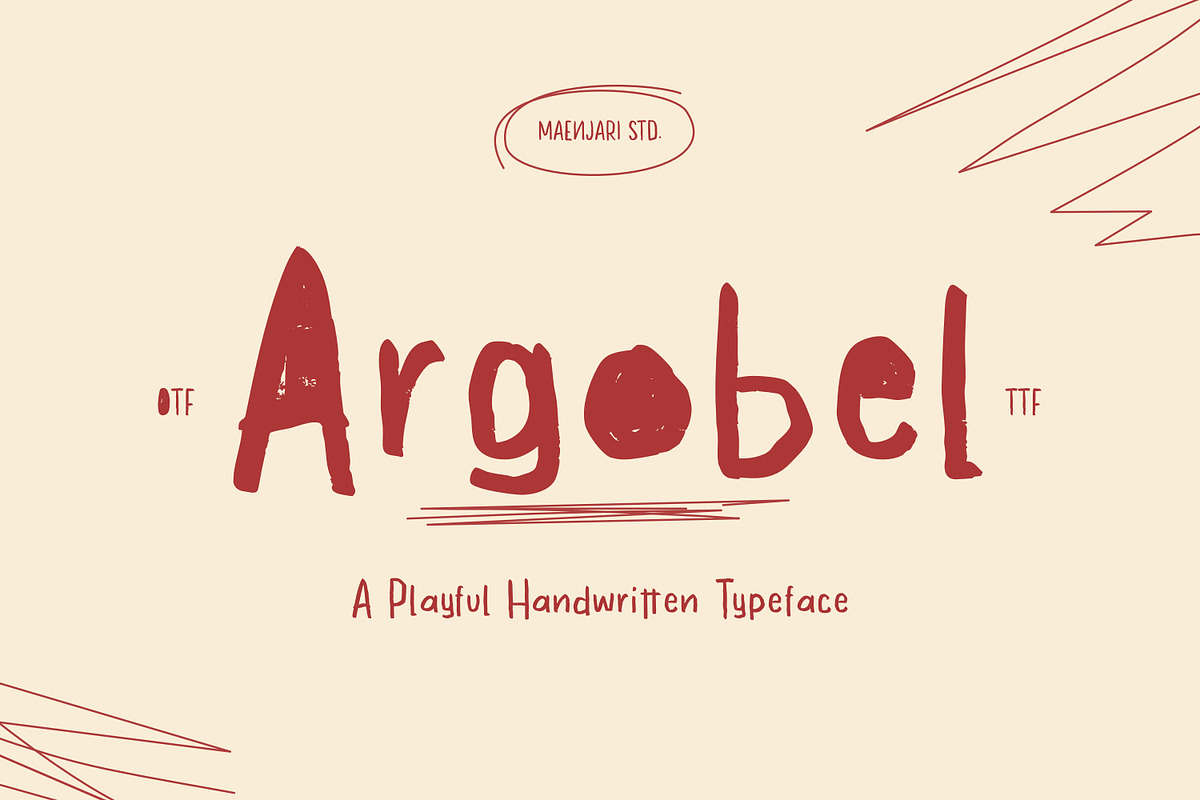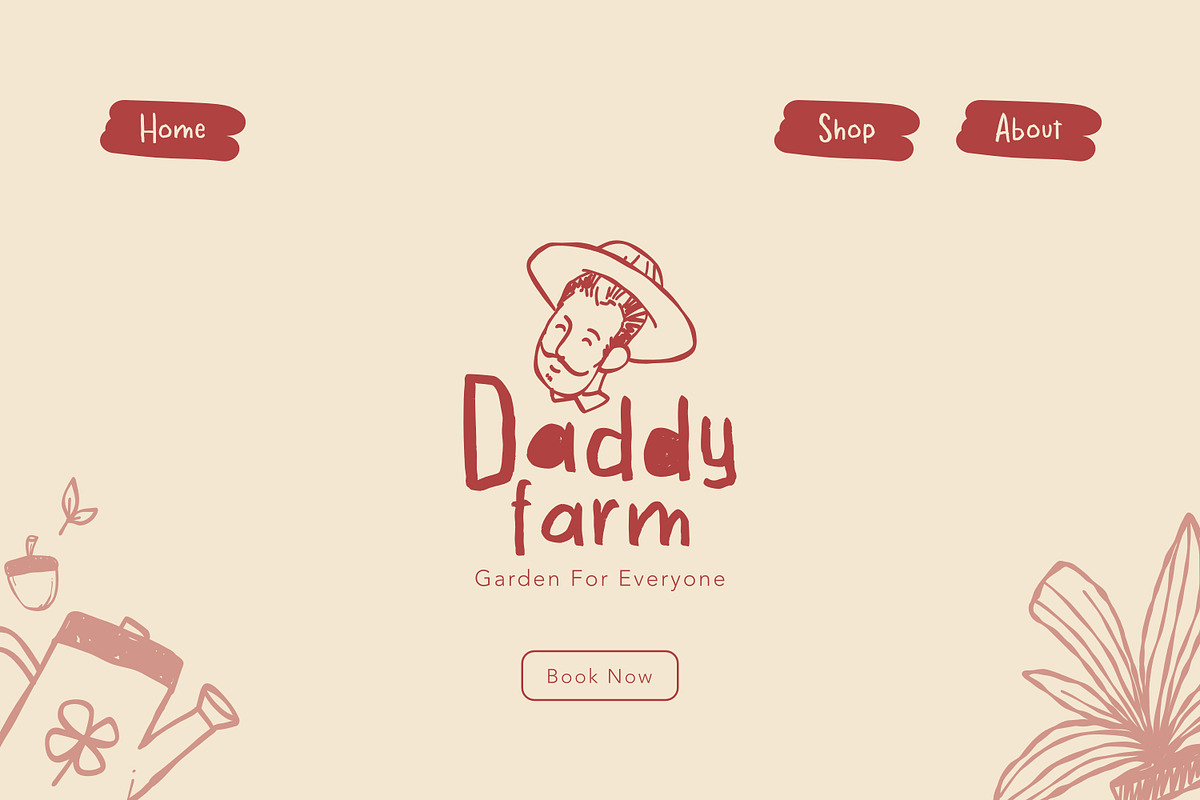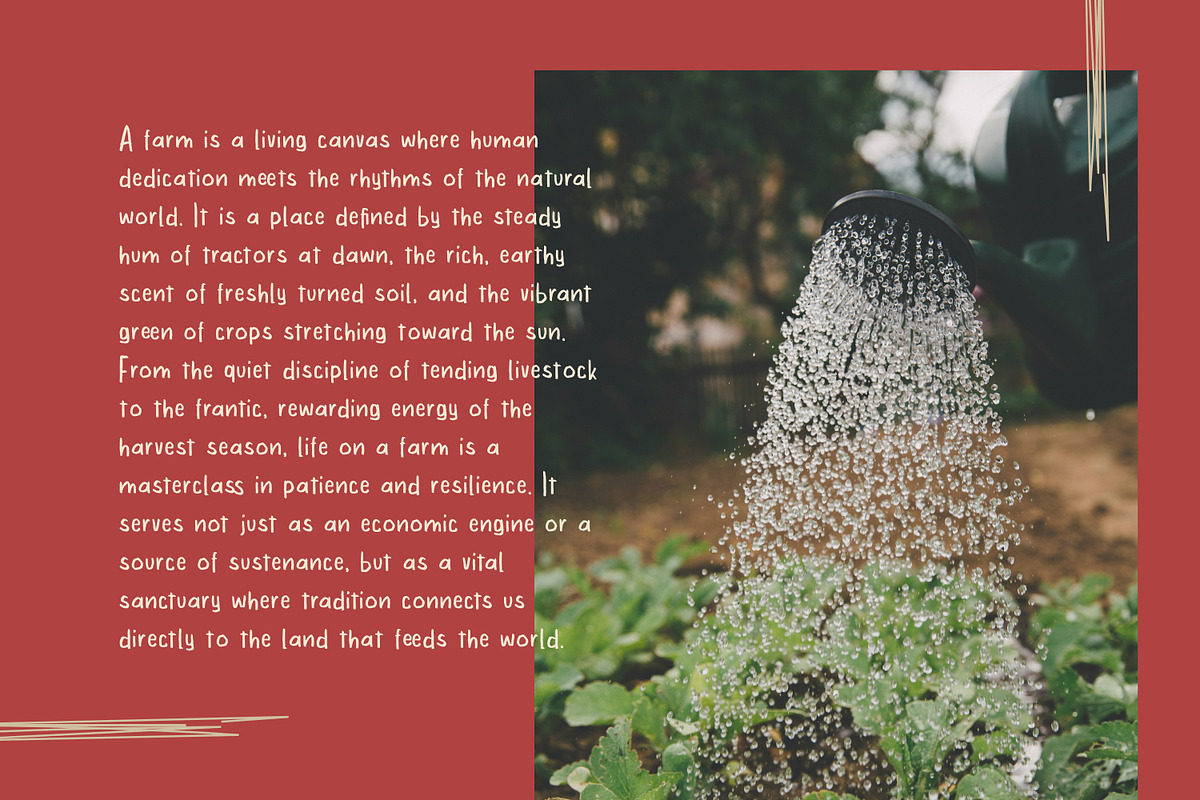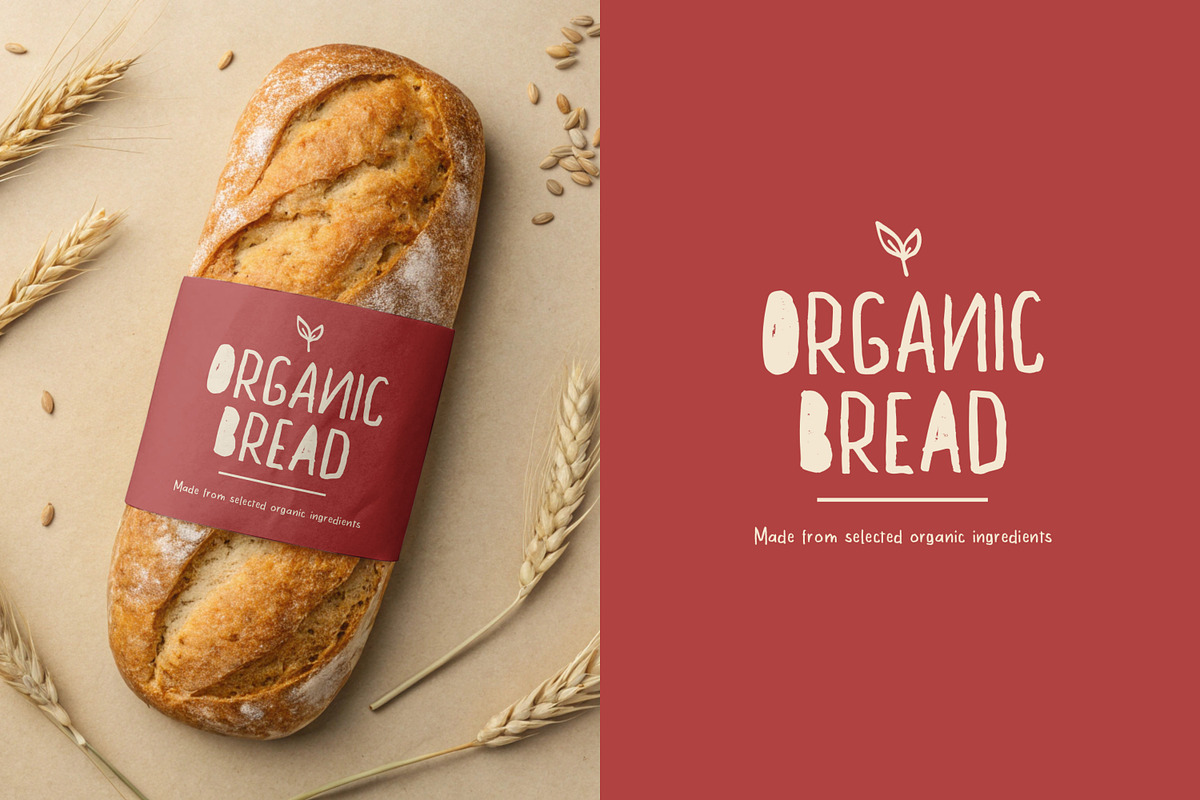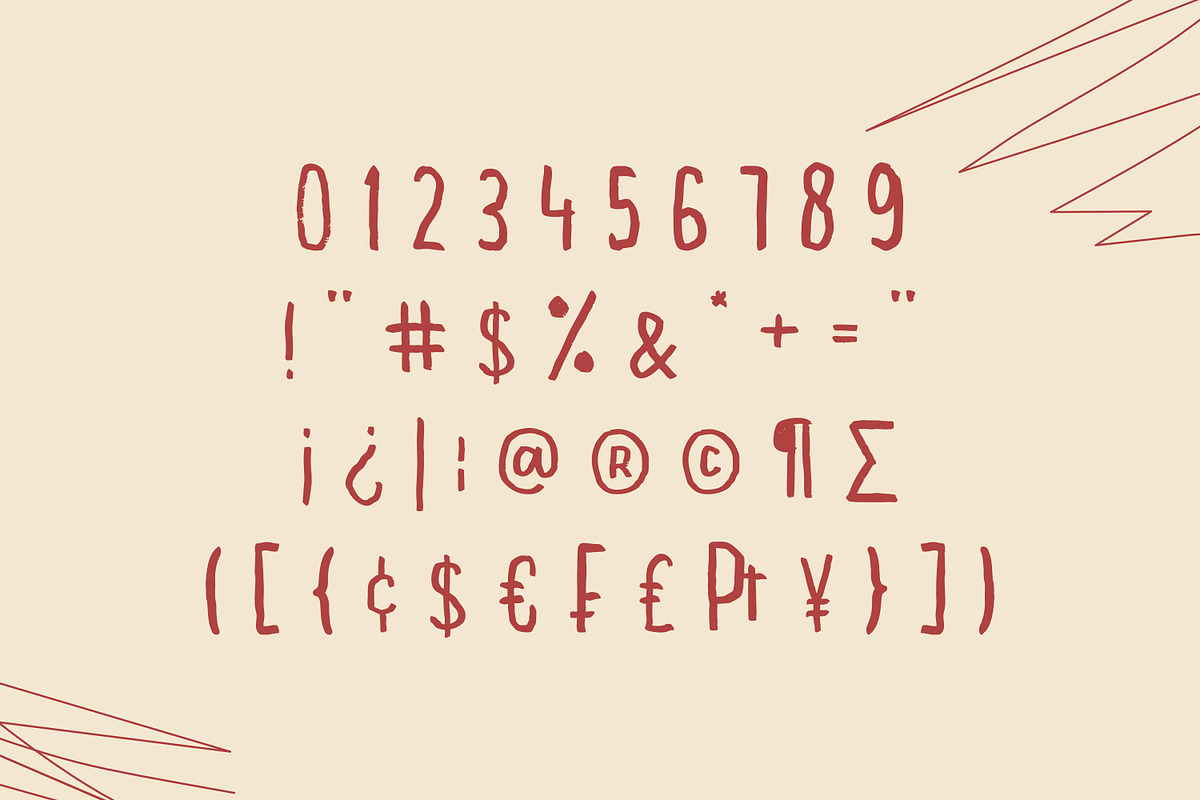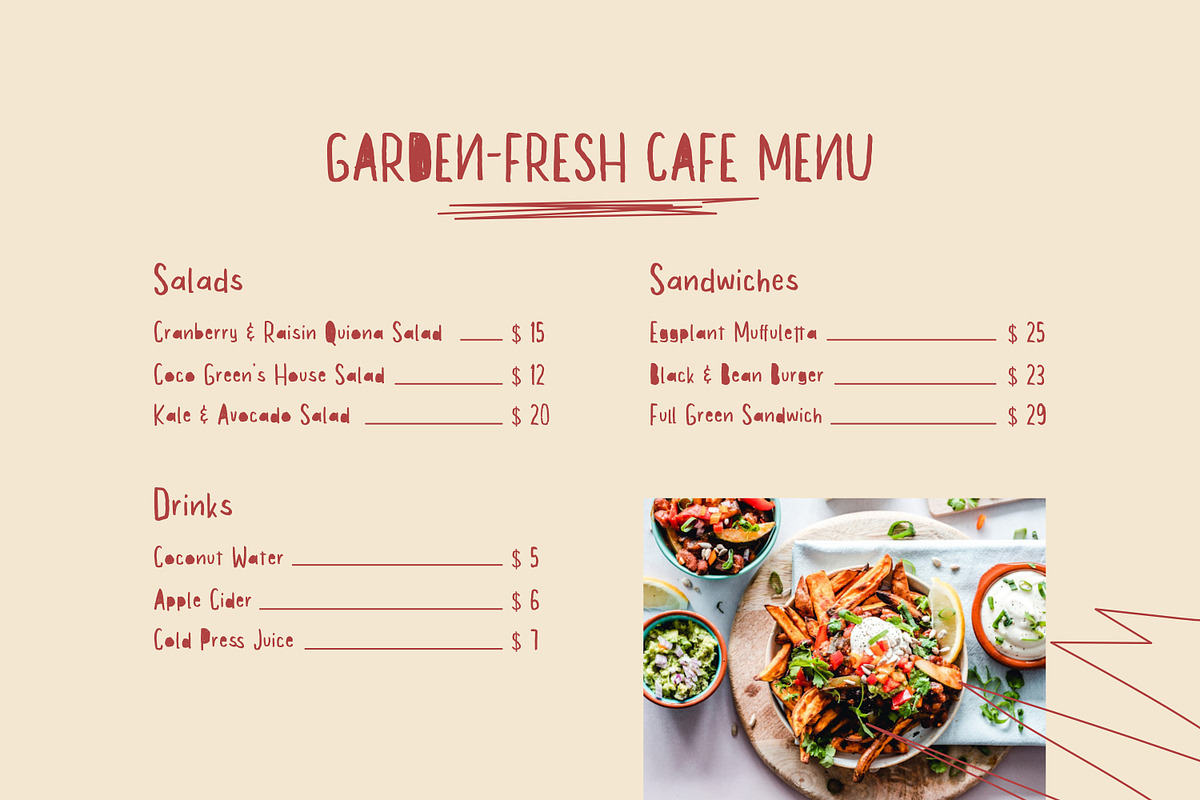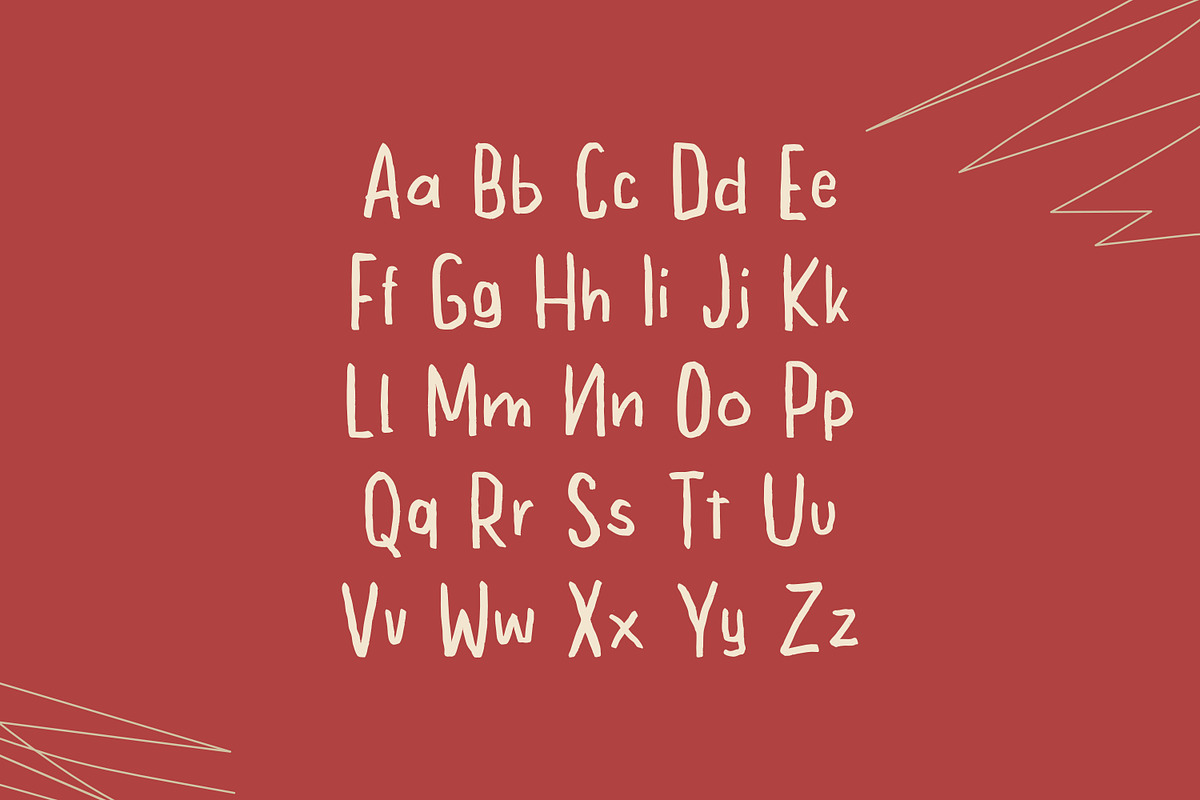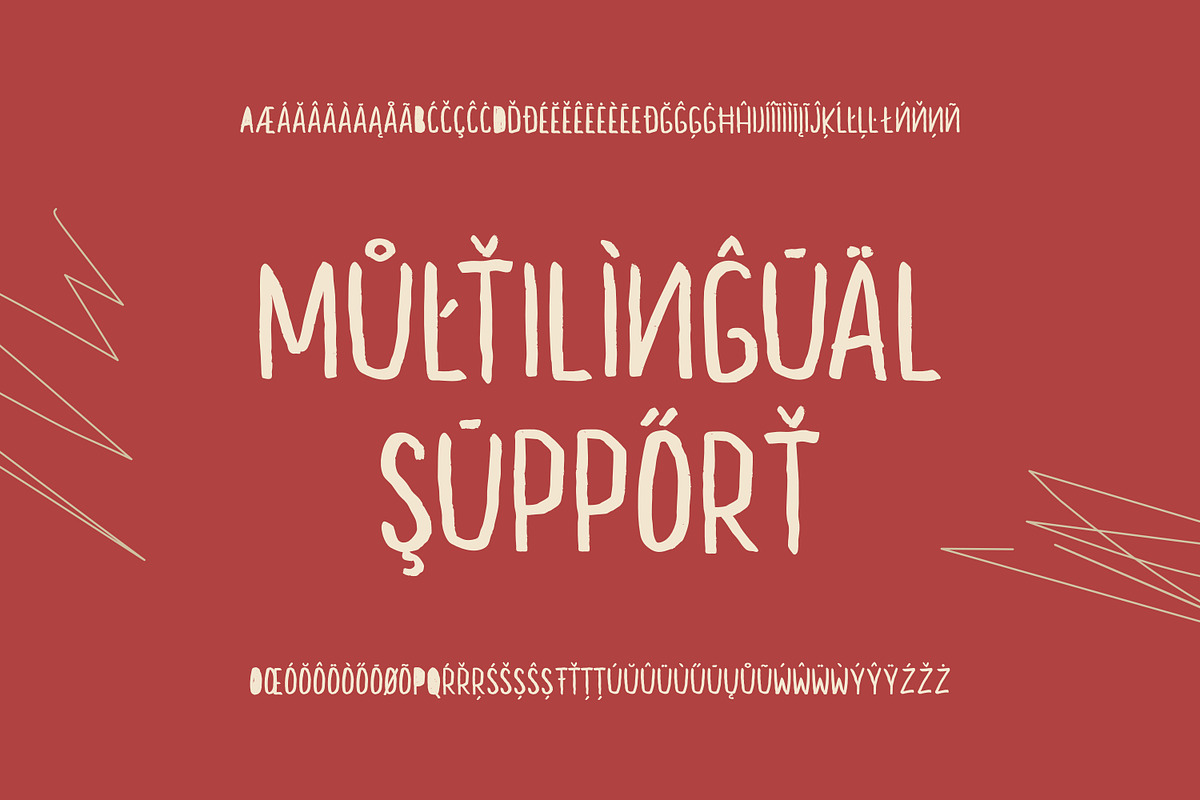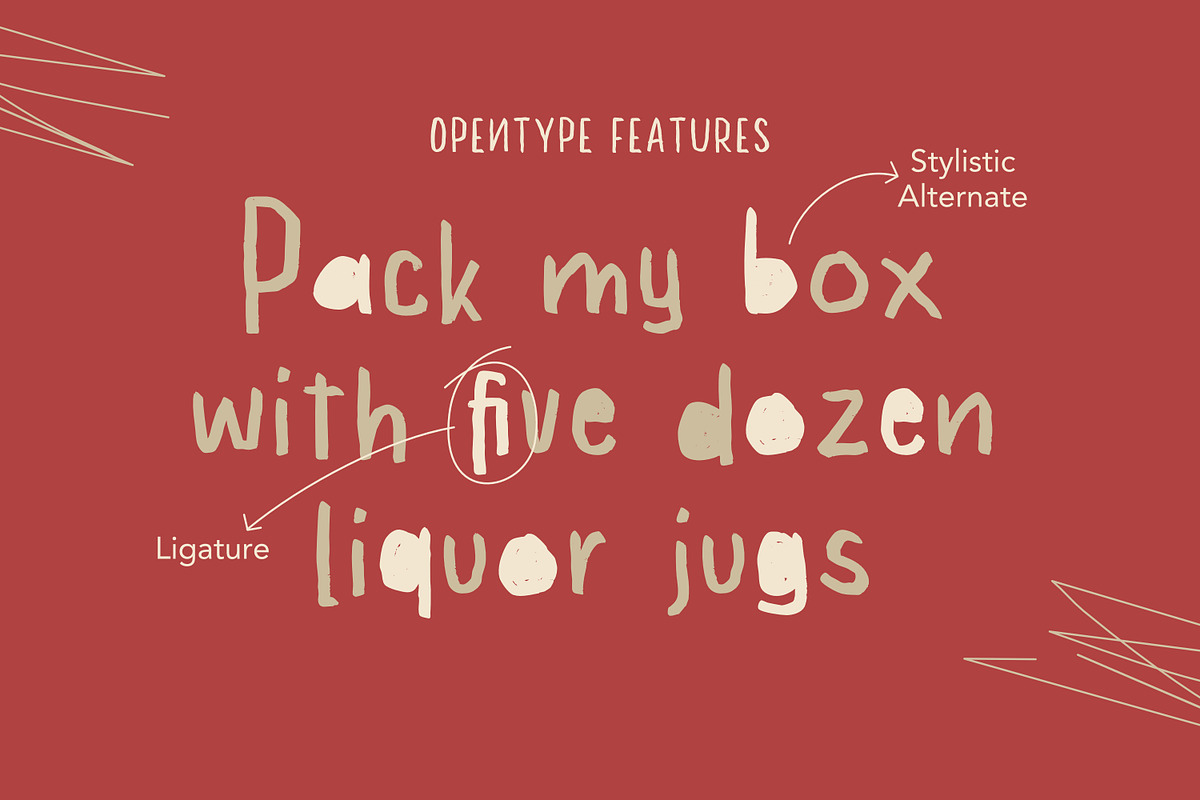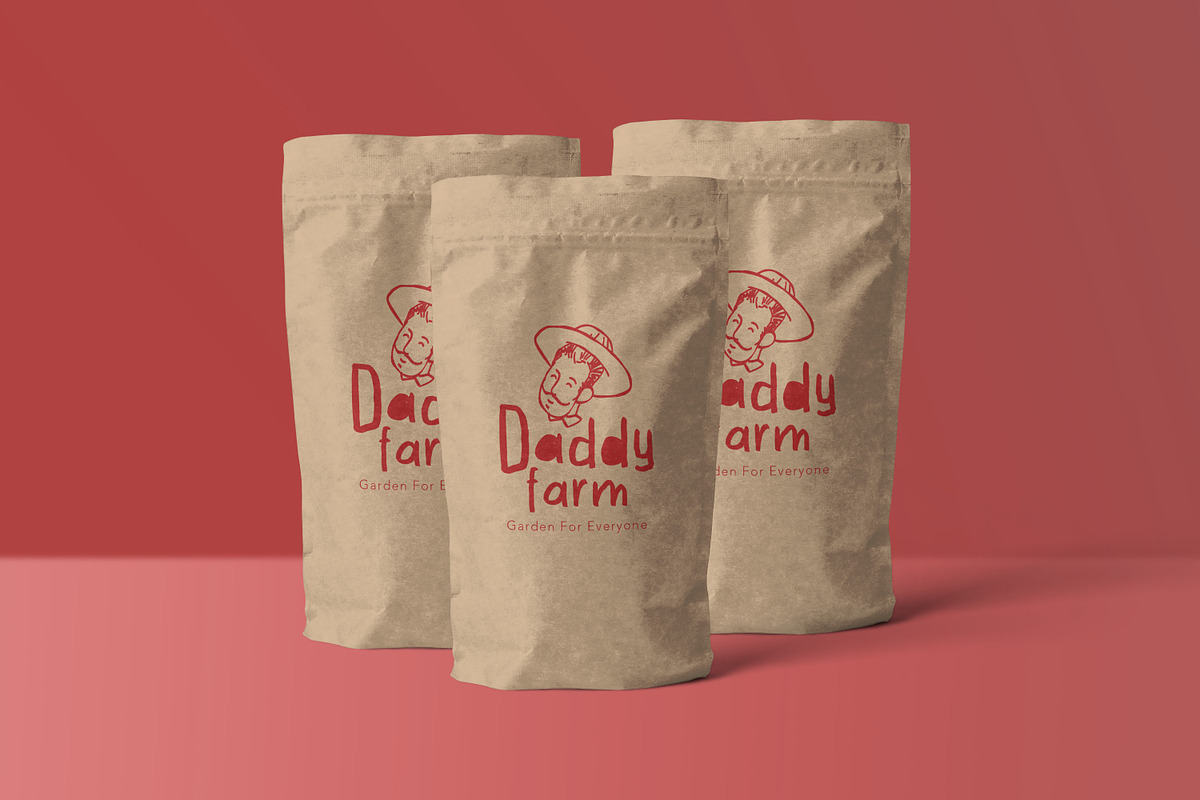
Argobel | Playful Quirky Handwritten
Meet Argobel – A Playful & Quirky Handwritten Font!
Add a giant splash of joy, charm, and carefree energy to your next design with Argobel! Crafted with a delightful bounce and irregular, whimsical lines, this font perfectly captures an authentic, happy handmade aesthetic. It is highly versatile and uniquely eye-catching, making it the ultimate choice for standout typography.
Whether you are creating whimsical children's book covers, colorful birthday invitations, playful school posters, custom stickers, or eye-catching social media graphics, Argobel delivers an instant dose of friendliness.
Full Uppercase & Lowercase Character Set
Numbers, Punctuation & Symbols
Fun Ligatures & Alternates
Extensive Multilingual Support
Give your branding, merchandise, and crafts a beautifully unique and organic personality today with Argobel!